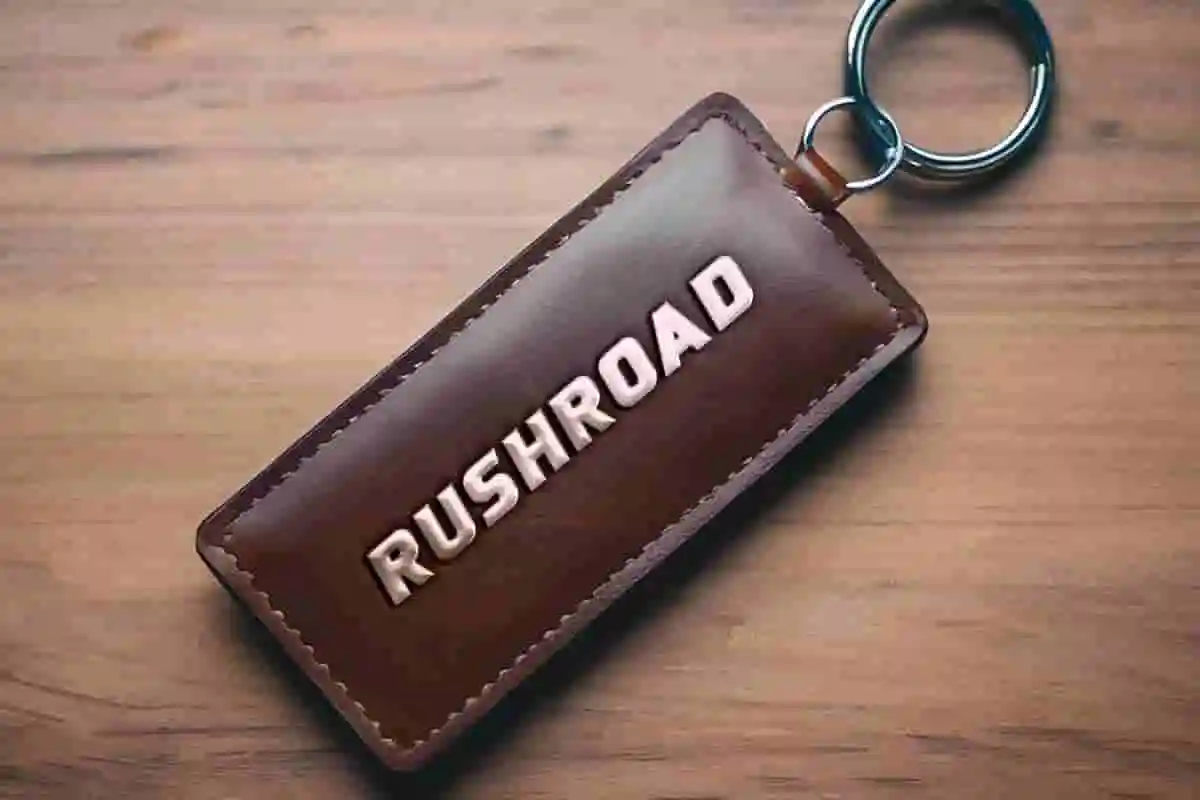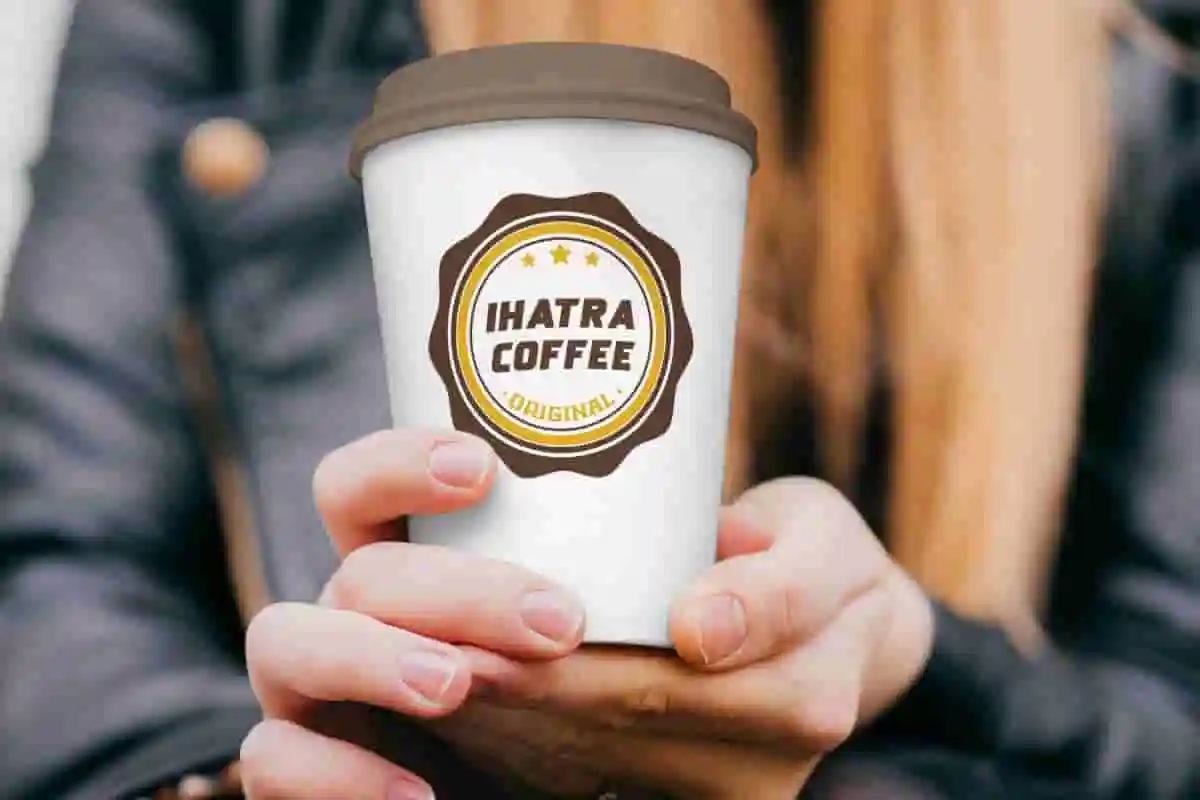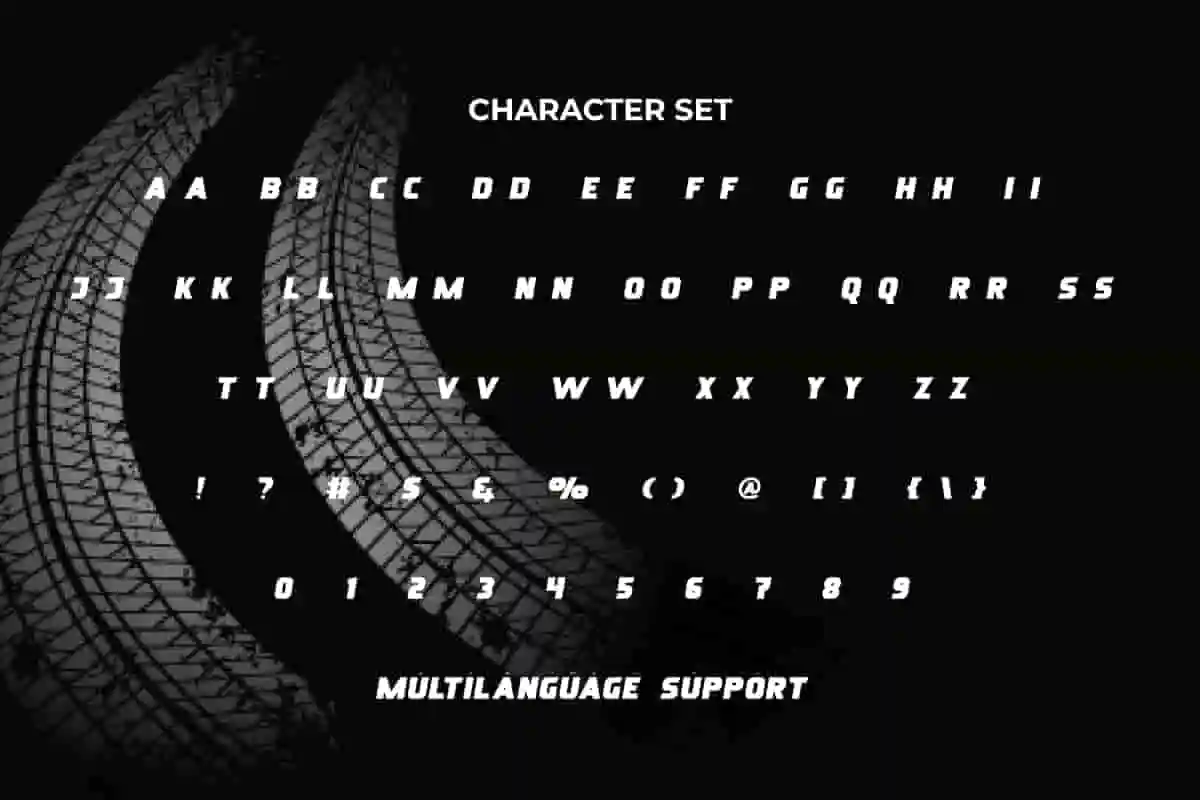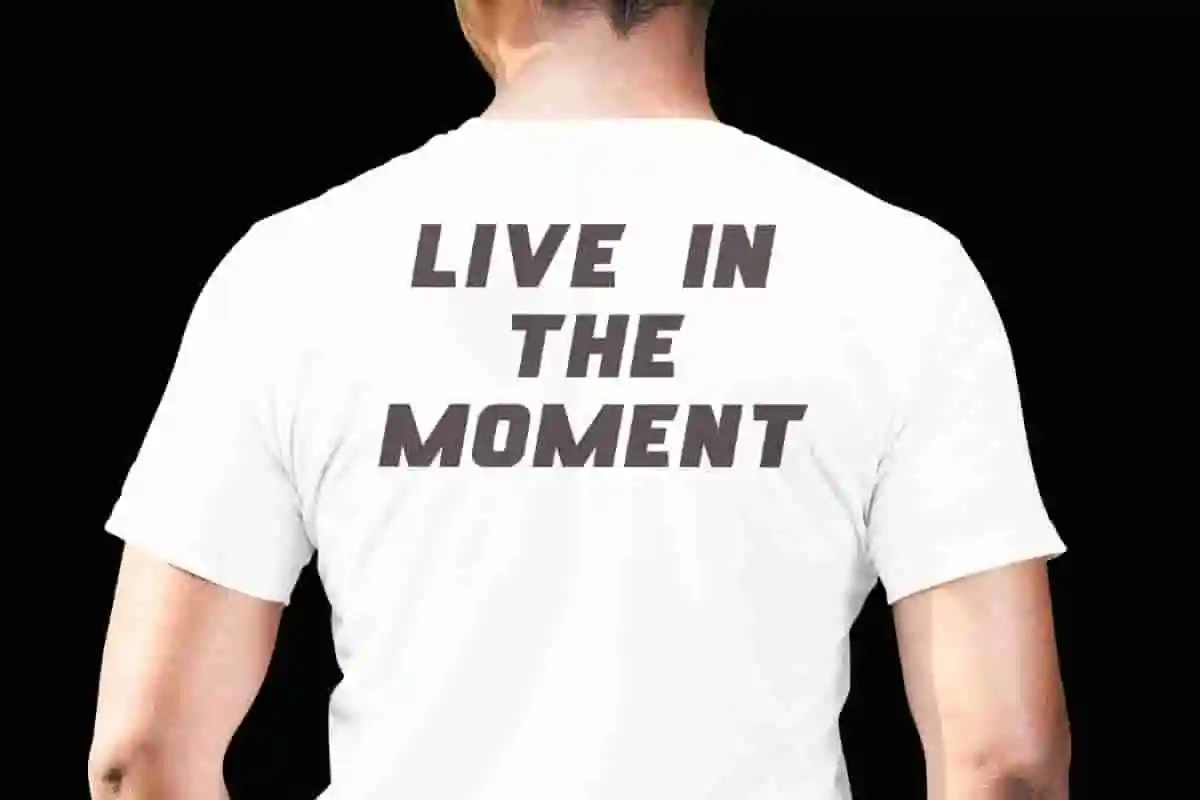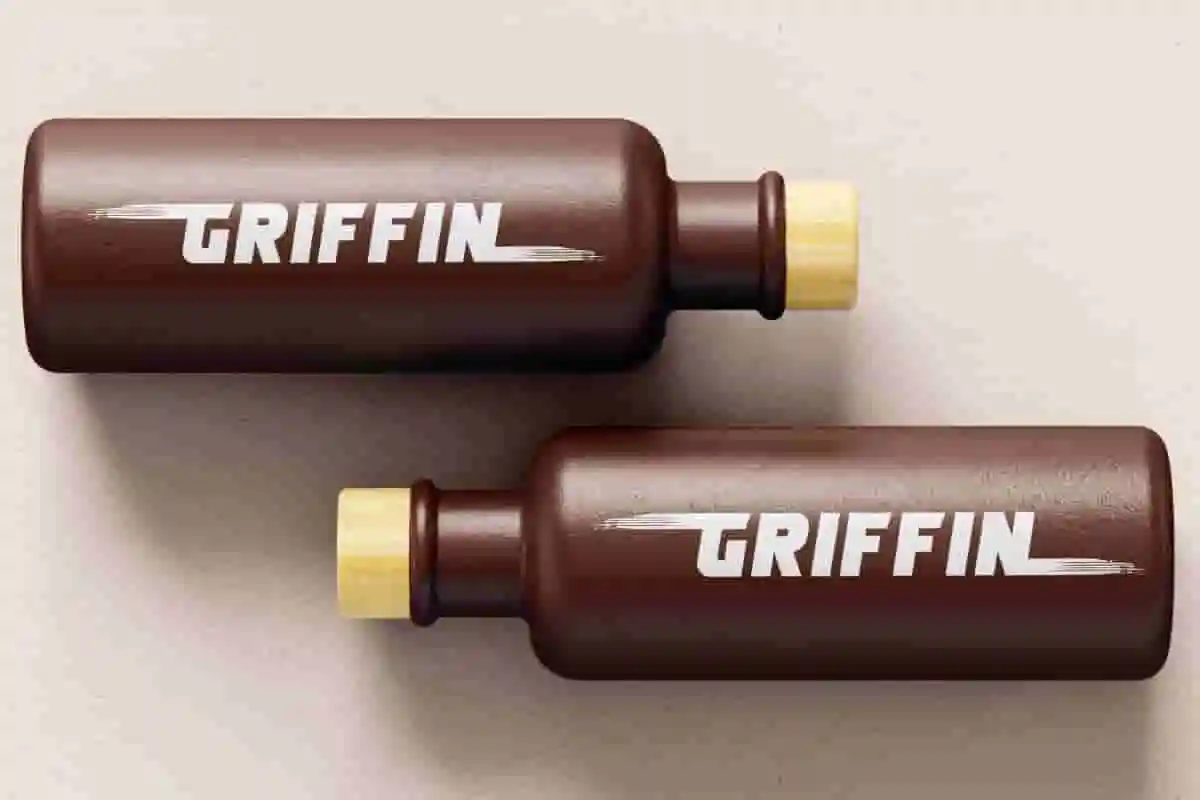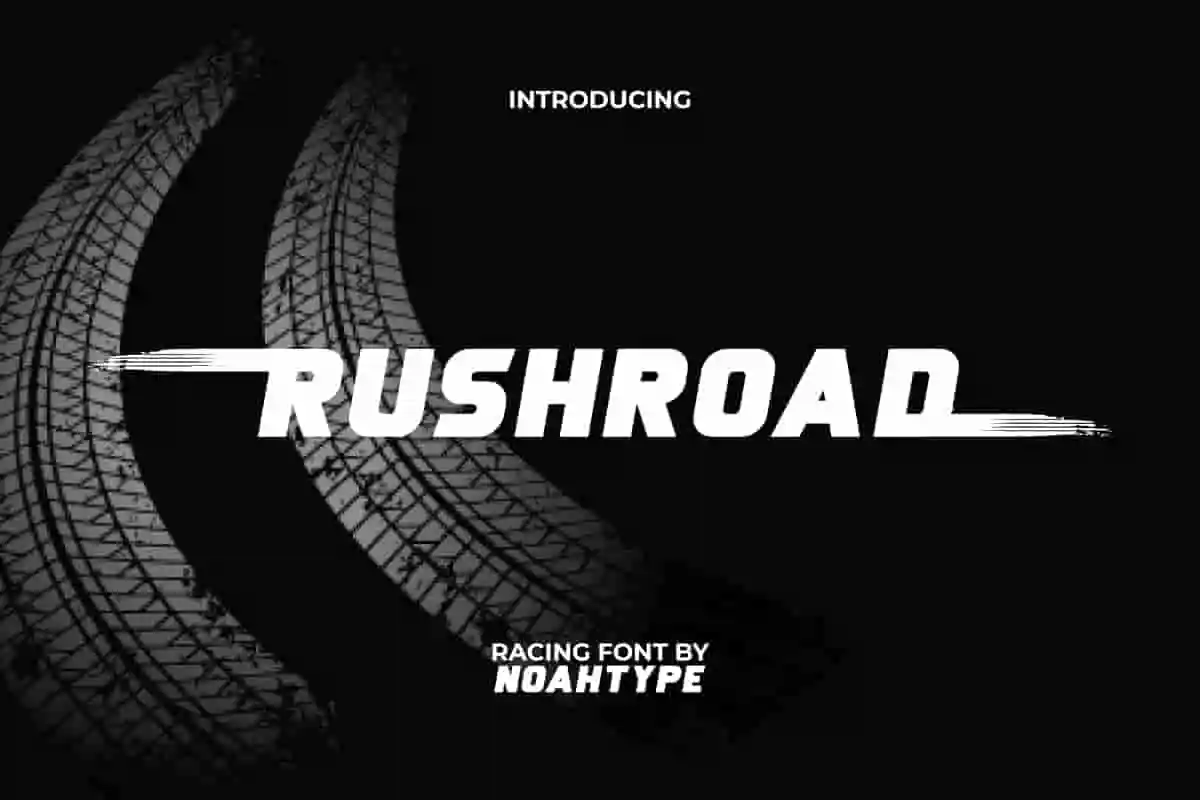
Rushroad Font is a modern and flat racing futuristic display font. This font has a basic style so it can be used in a variety of designs and can be read clearly. It will be perfect for any projects, such as custom design, invitation, label, brand image, cover, menu, poster, printing, product packaging, quotes, signage, website, and many more!
Rushroad Font includes full set of ALL CAPS for Uppercase and Lowercase Basic Characters, Numerals, Punctuation, Symbol and Alternate character. This modern font will make your design standout and also a perfect choice for many industries, such as automotive, sports, game, racing, fashion, movie, accessories, advertising, art, café, event or festival, printing, publishing, etc.